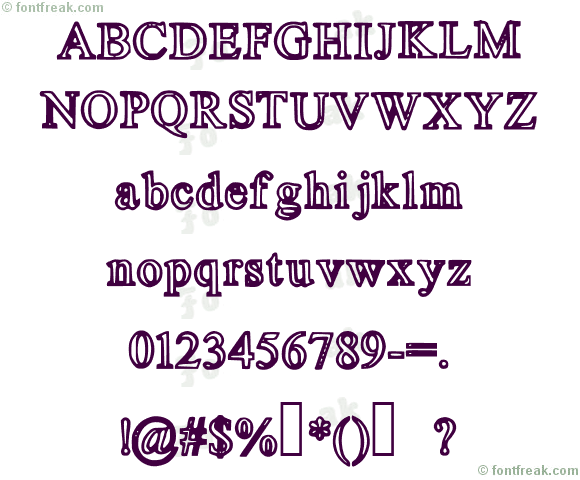
ClosetoTO
ClosetoTO is a unique display font created by Leonard Posavec and available as freeware, making it accessible for a wide range of projects. This font showcases a playful, slightly whimsical style that stands out in any design context. Its visual characteristics include varying stroke weights that give it an organic feel, while the overall design exhibits moderate contrast and rounded edges, which contribute to its friendly appearance. The letterforms are well-spaced, ensuring readability while maintaining an engaging visual rhythm.
The ClosetoTO font is particularly suited for creative applications such as wedding invitations, where its charming aesthetics can add a personal touch. It also works wonderfully for movie posters, bringing an element of fun and intrigue that captures the viewer's attention. Restaurant menus can benefit from its inviting style, enhancing the dining experience by adding a touch of creativity to the presentation. Additionally, ClosetoTO is ideal for youth-oriented branding, ensuring that any content aimed at children or young adults feels approachable and lively.
Targeting graphic designers, small business owners, and content creators, ClosetoTO offers a versatile option for those looking to infuse their projects with a sense of personality and warmth. Whether used in digital or print formats, this font can elevate the overall aesthetic of any design.
What makes ClosetoTO truly stand out is its ability to balance playfulness with functionality, making it a valuable asset for anyone in need of an engaging typeface. With its distinctive flair and free availability, the ClosetoTO font free download opens up a world of creative possibilities, inviting users to explore and innovate in their design endeavors.